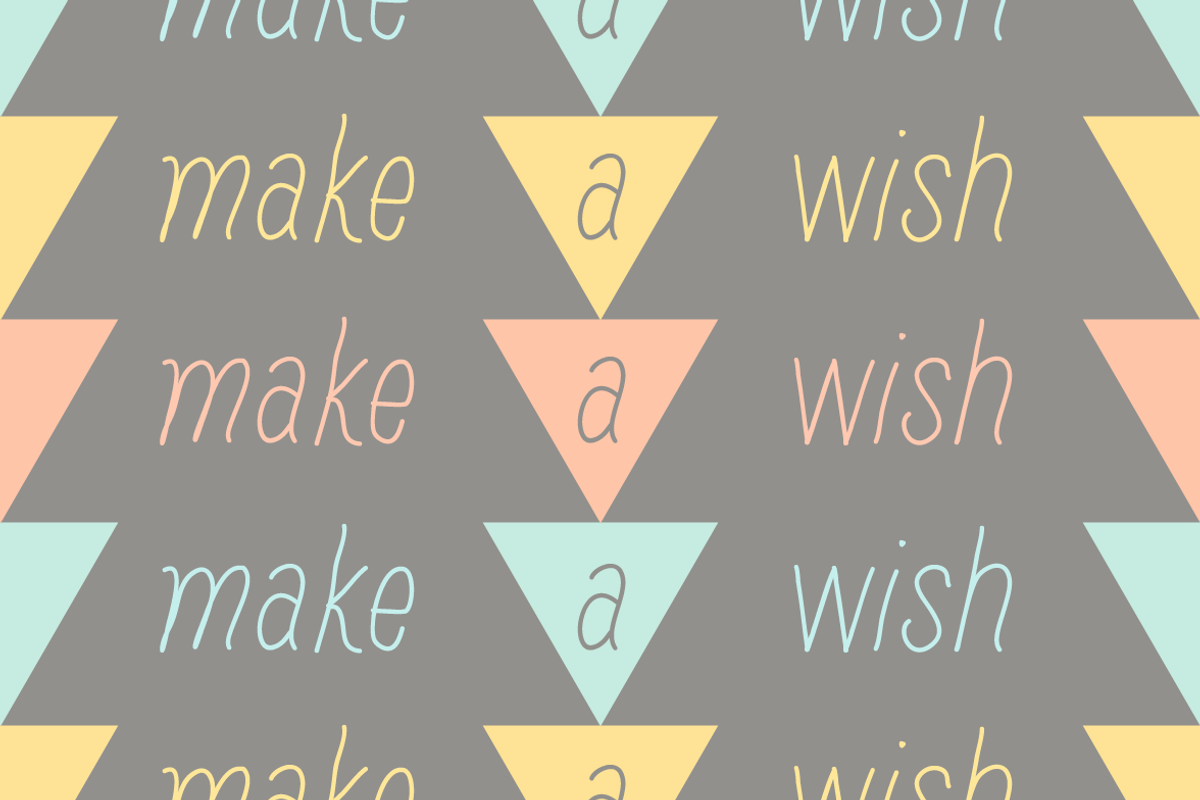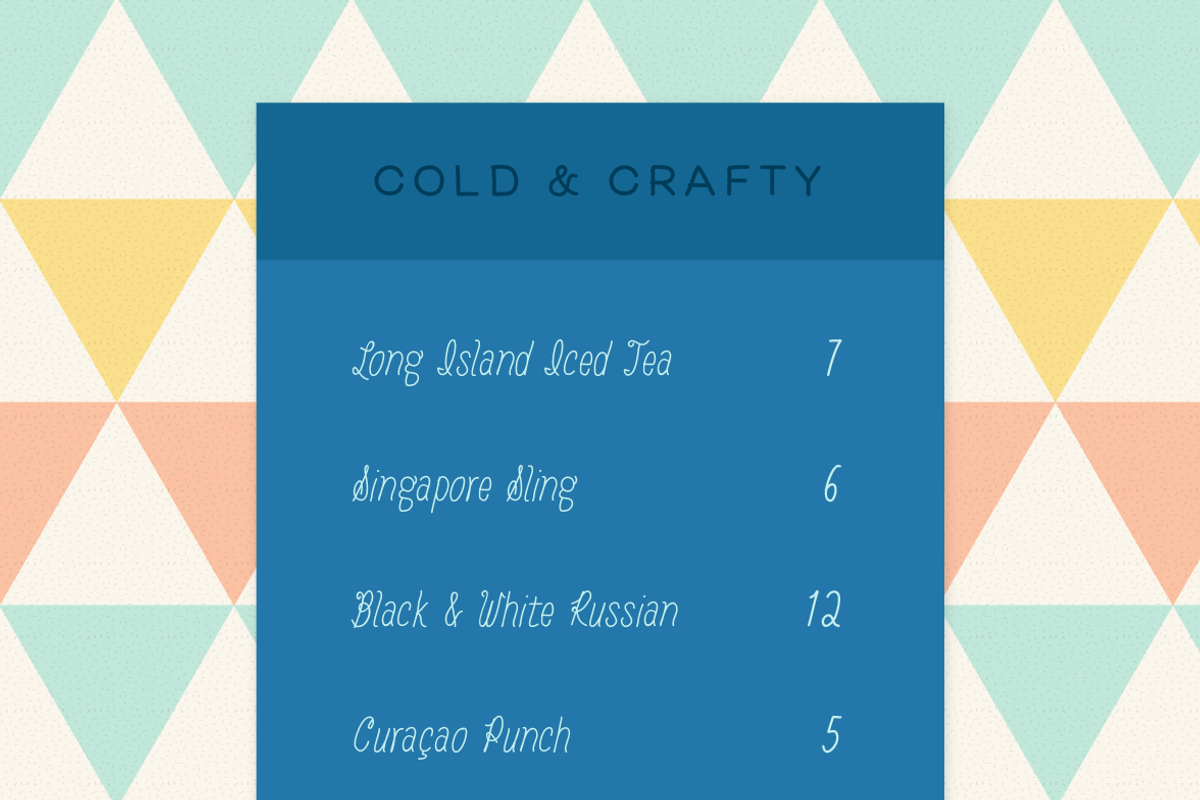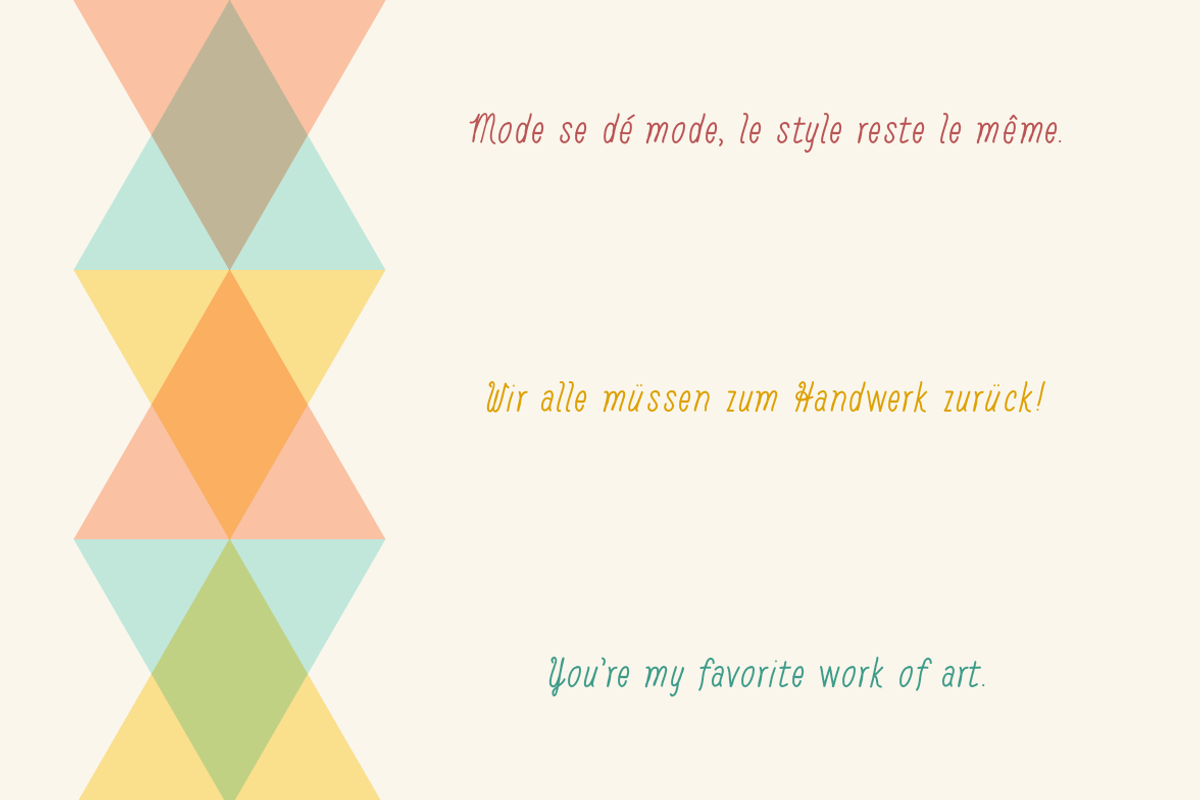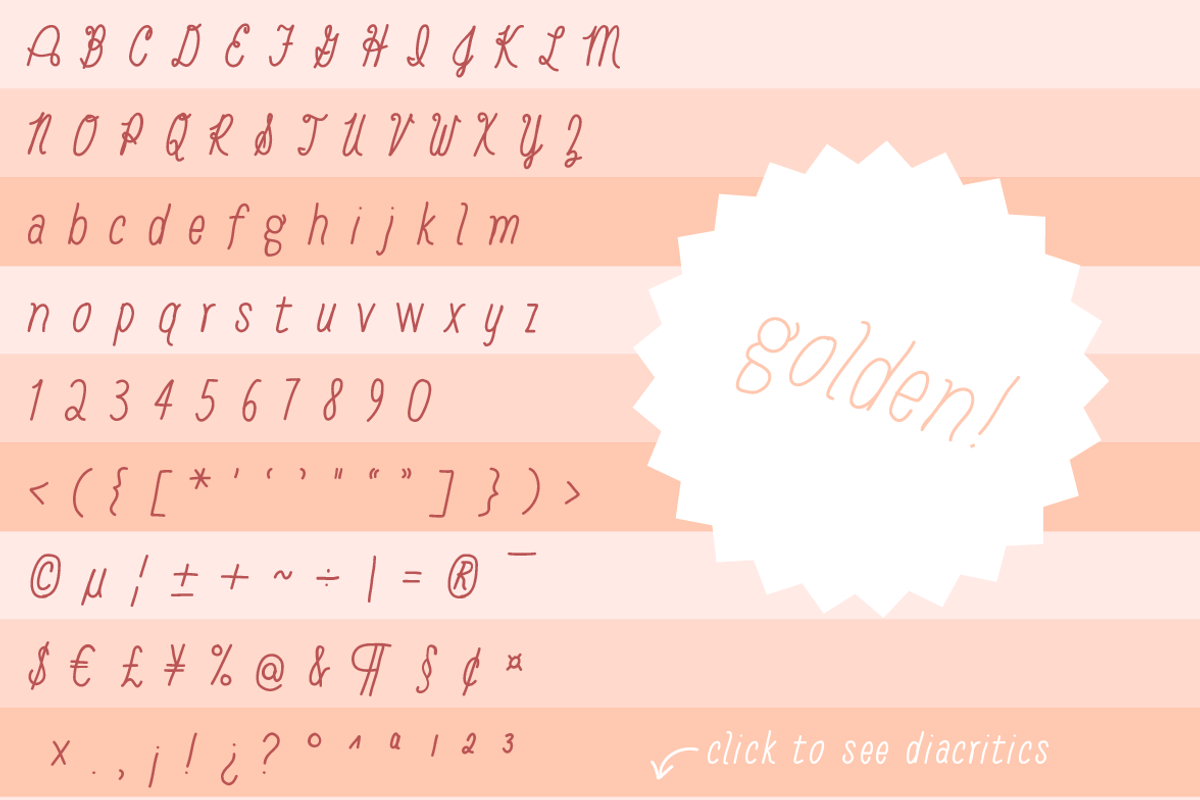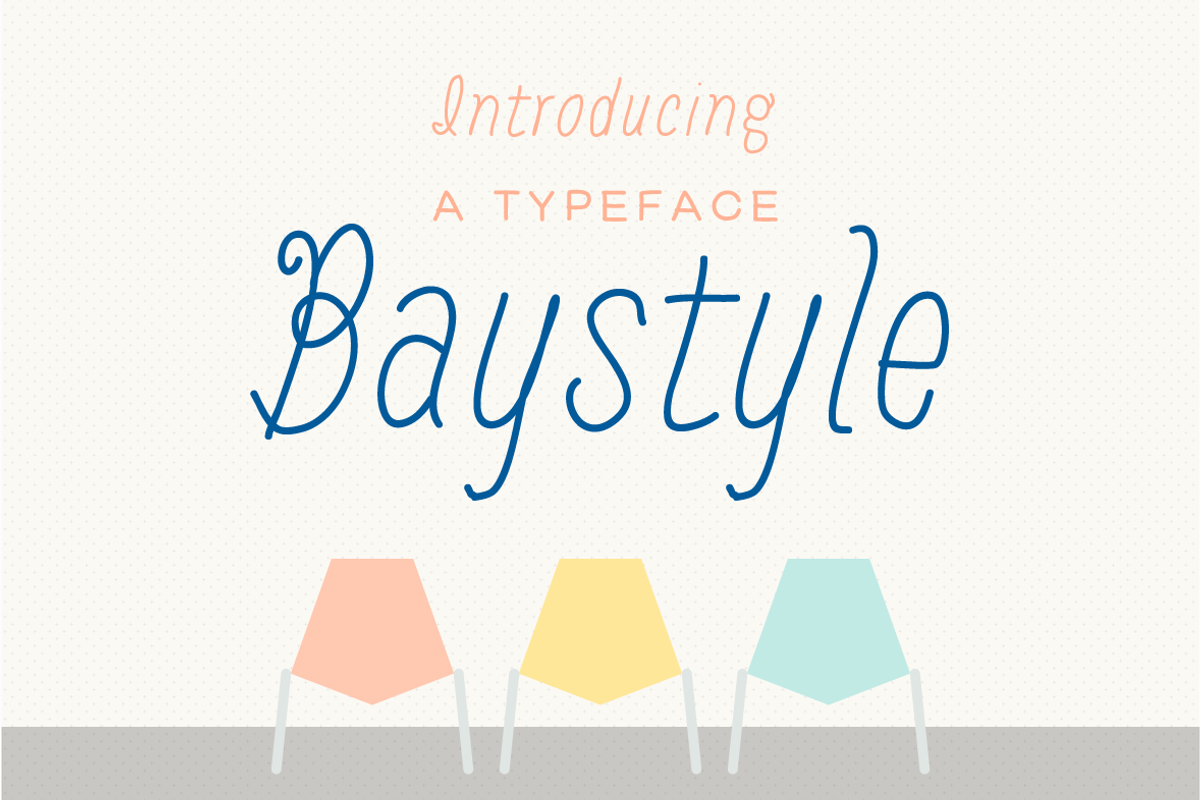
Baystyle typeface
Baystyle typeface by Ekloff is a font selected for branding, posters, packaging, typography.
- She's the perfect blend of hand lettering and scripty italic characters.
Why Baystyle typeface is worth a look
Baystyle typeface by Ekloff fits naturally into Branding, posters, packaging, typography.